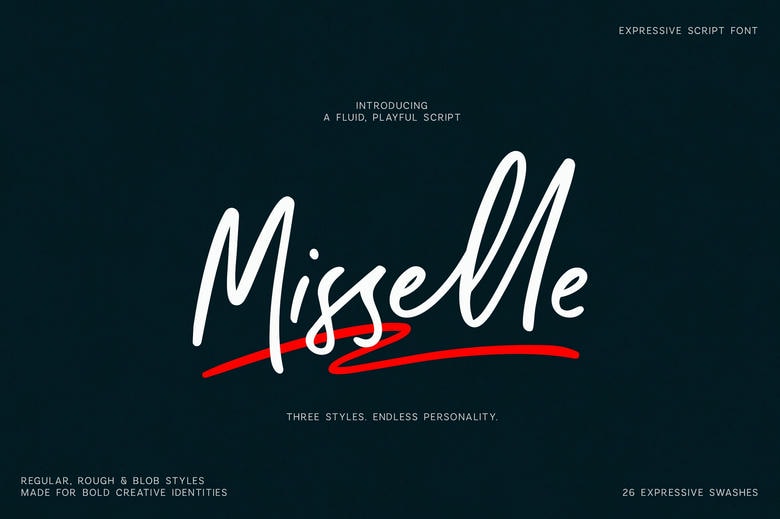
Misselle Font
Misselle is a handwritten script font family that adds movement, personality, and a confident human touch to your projects. It offers three styles: Regular, which is smooth, fluid, and versatile; and Blob, which is soft, playful, and full of character.
Misselle is a great choice. Misselle works well for logos, brand identities, packaging, editorial layouts, social media graphics, posters, invitations, quotes, product labels, and creative campaigns. If you want something elegant, spontaneous, playful, or a little imperfect, Misselle gives every word its own personality.
Misselle Handwritten Script Font Family